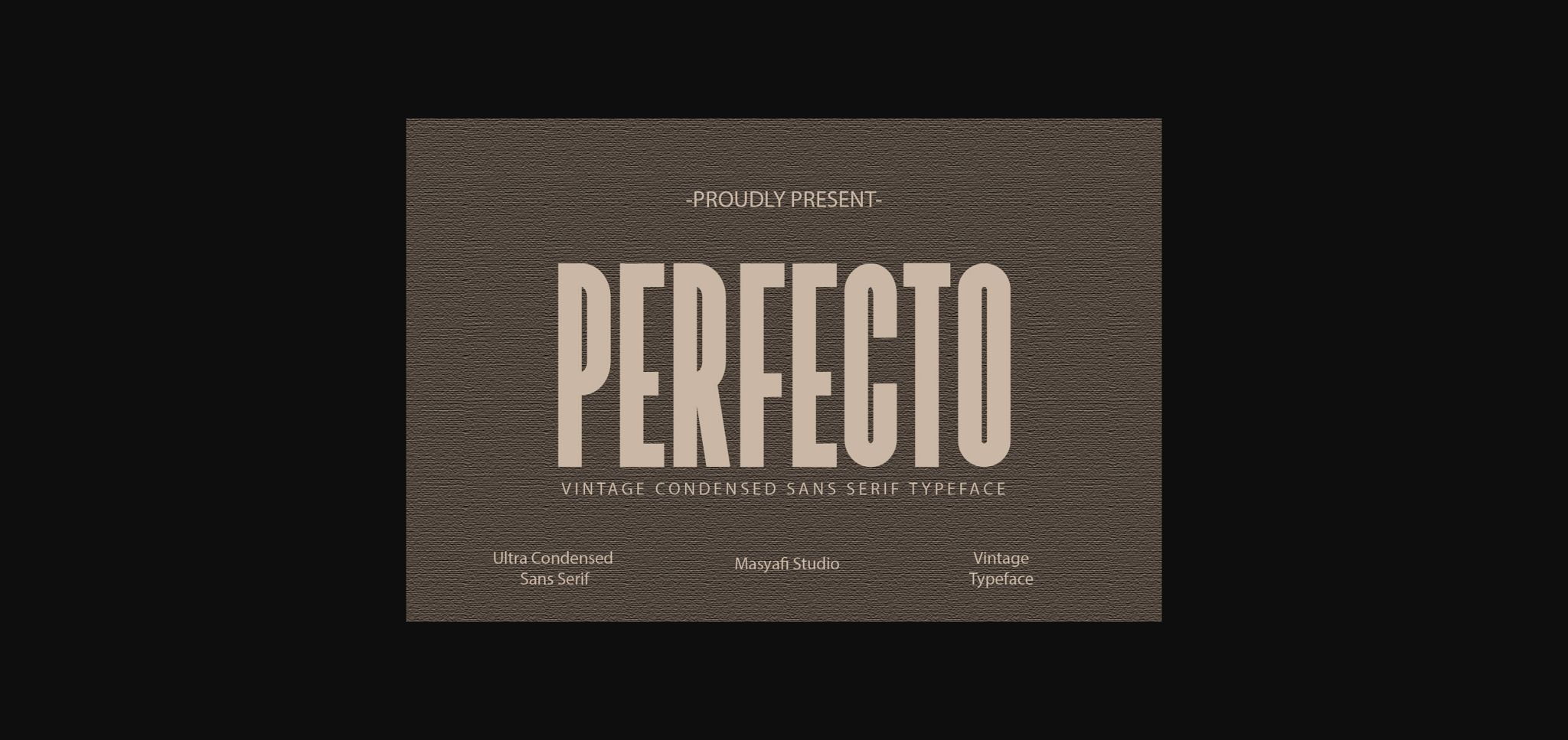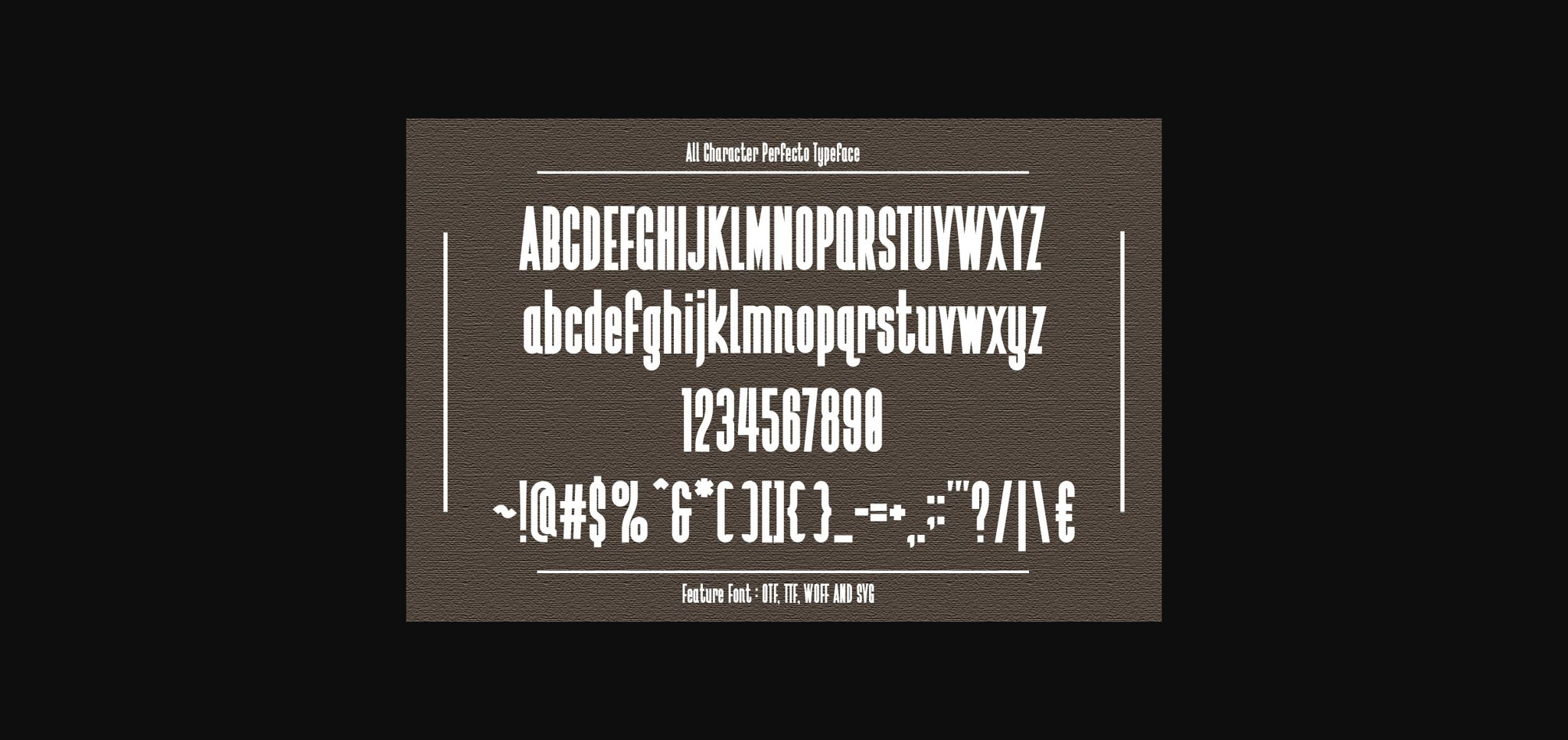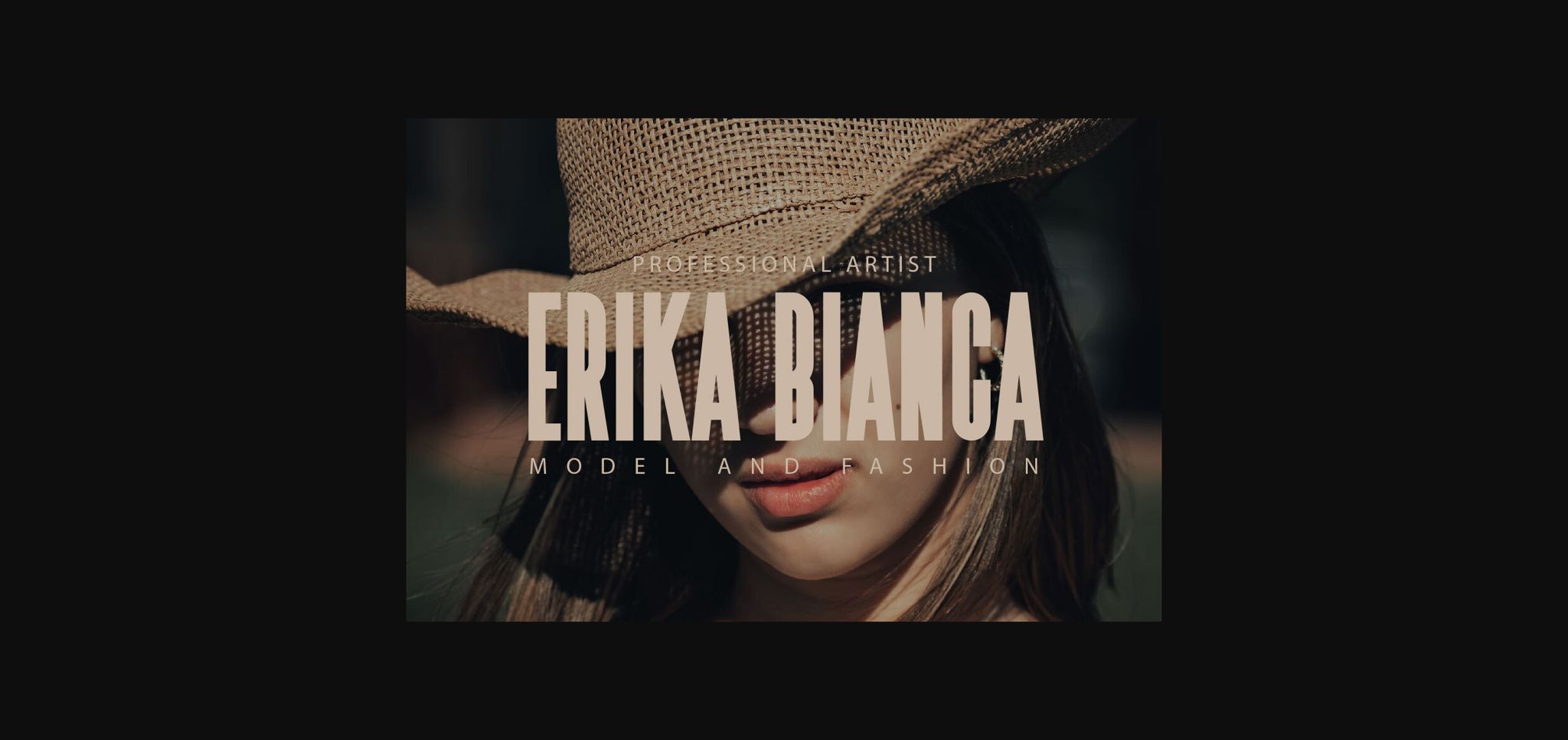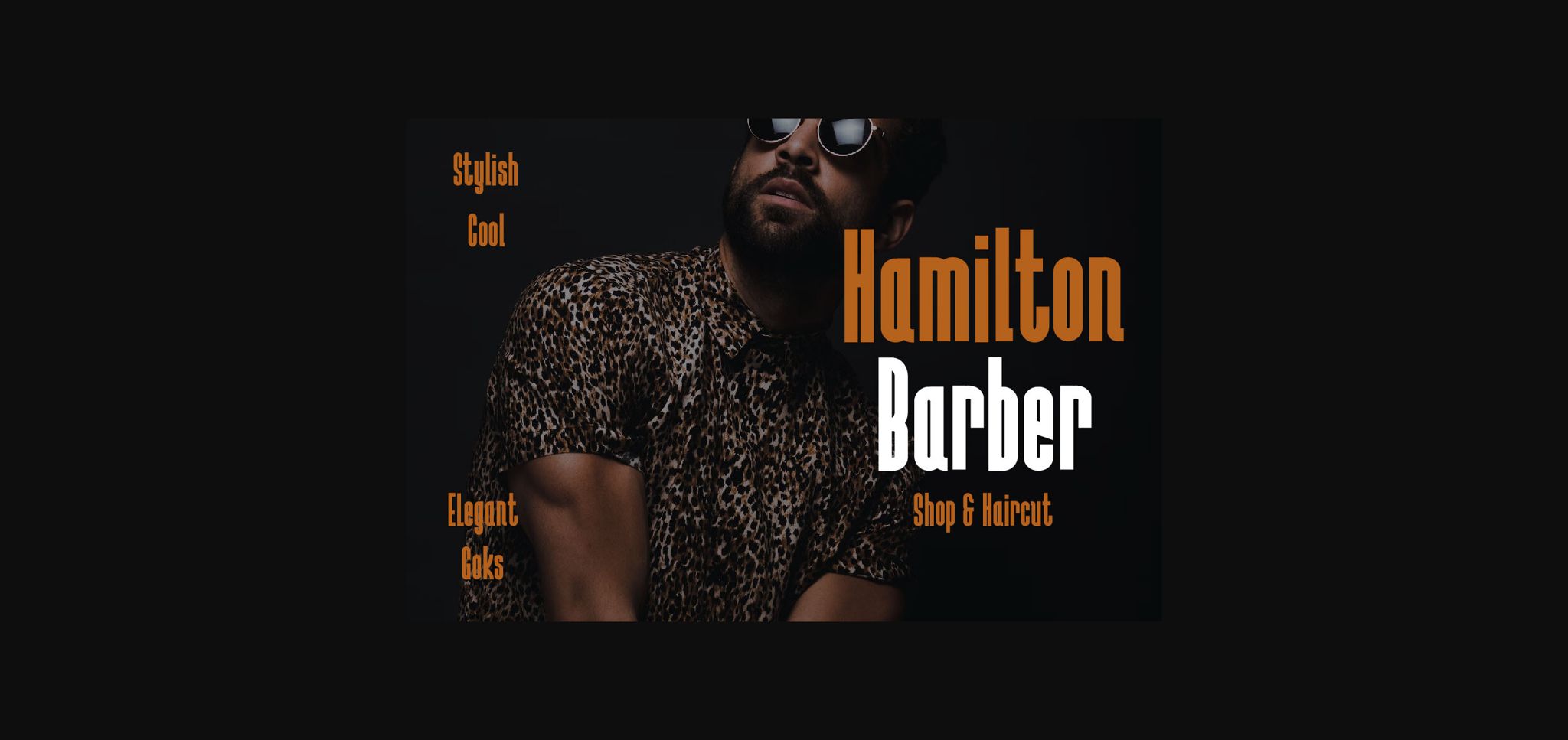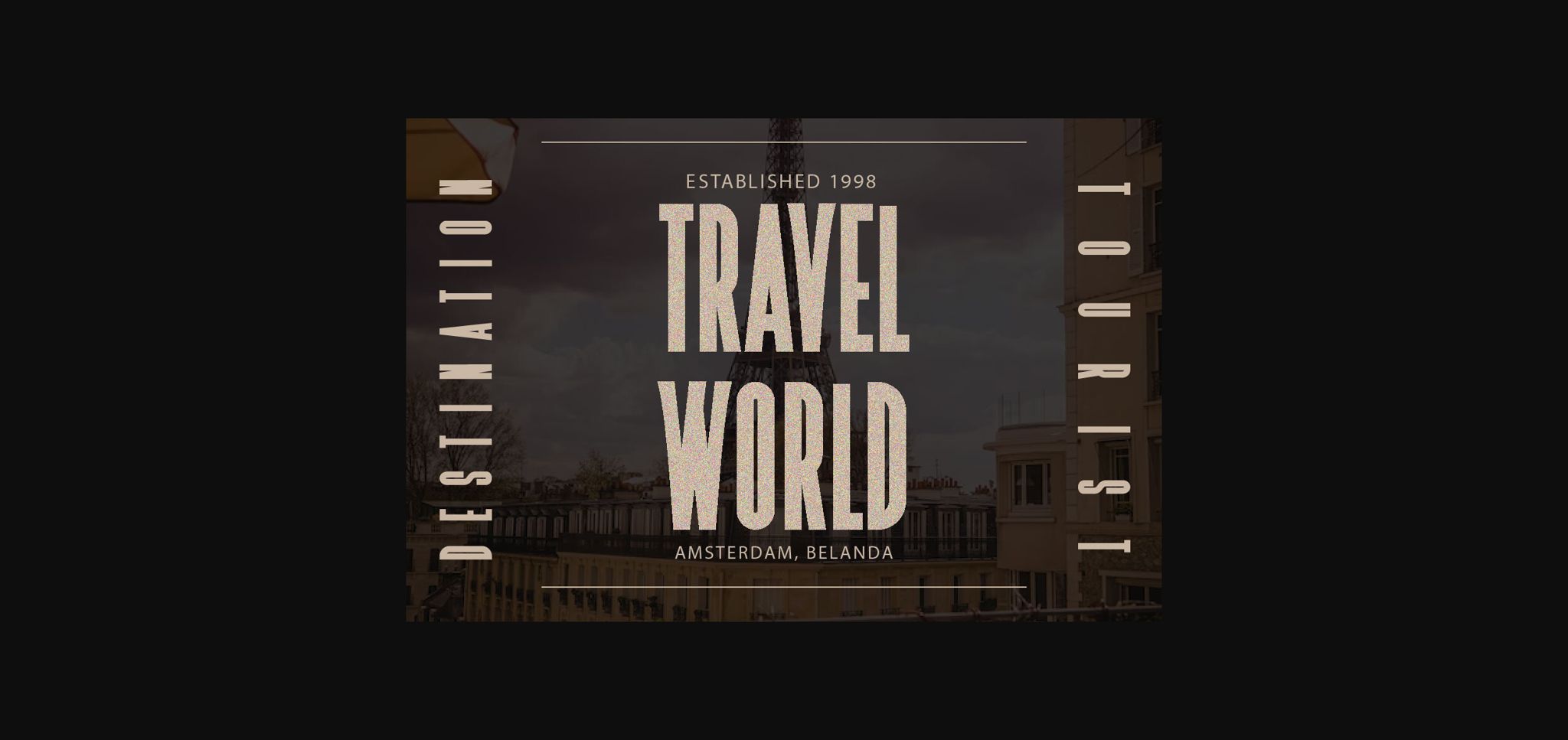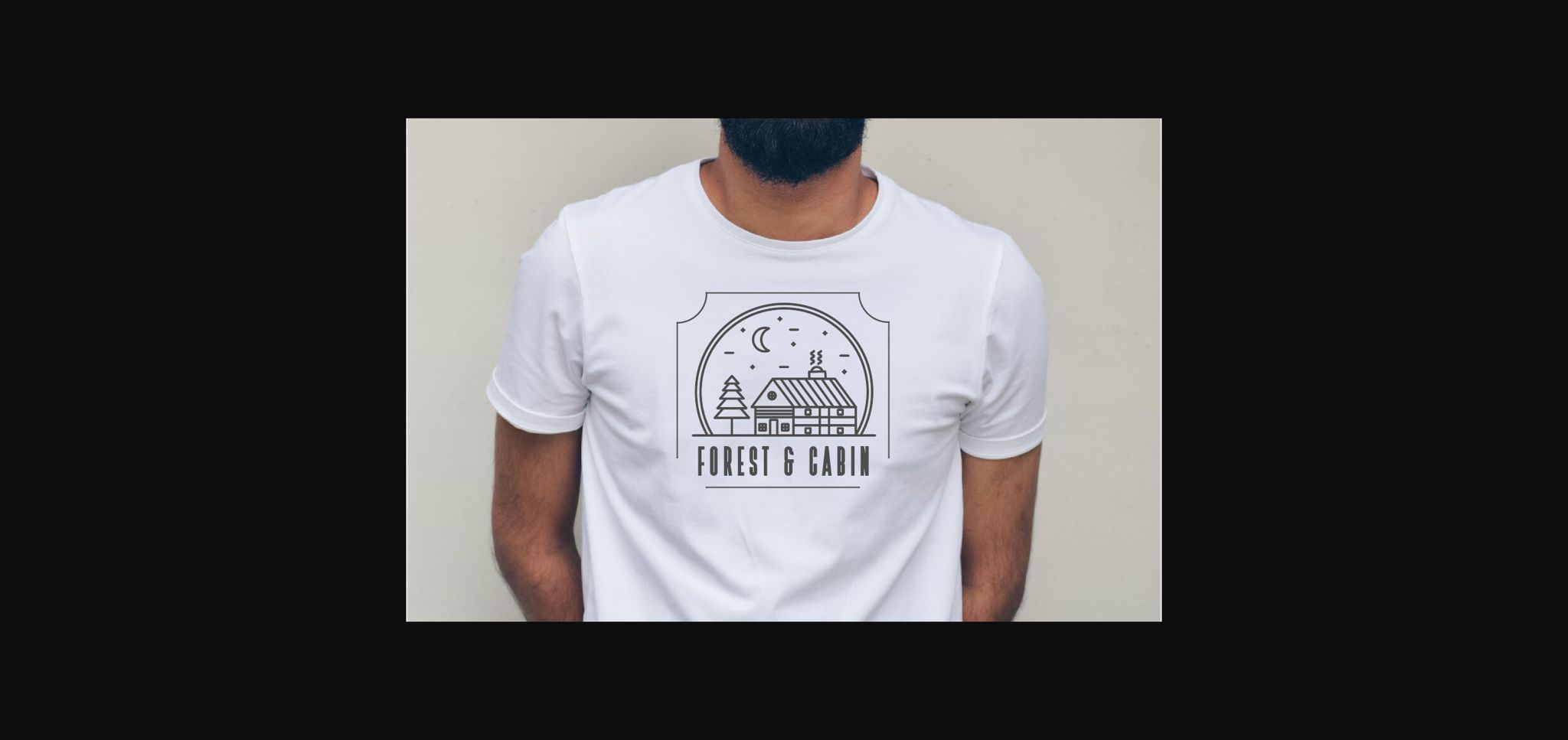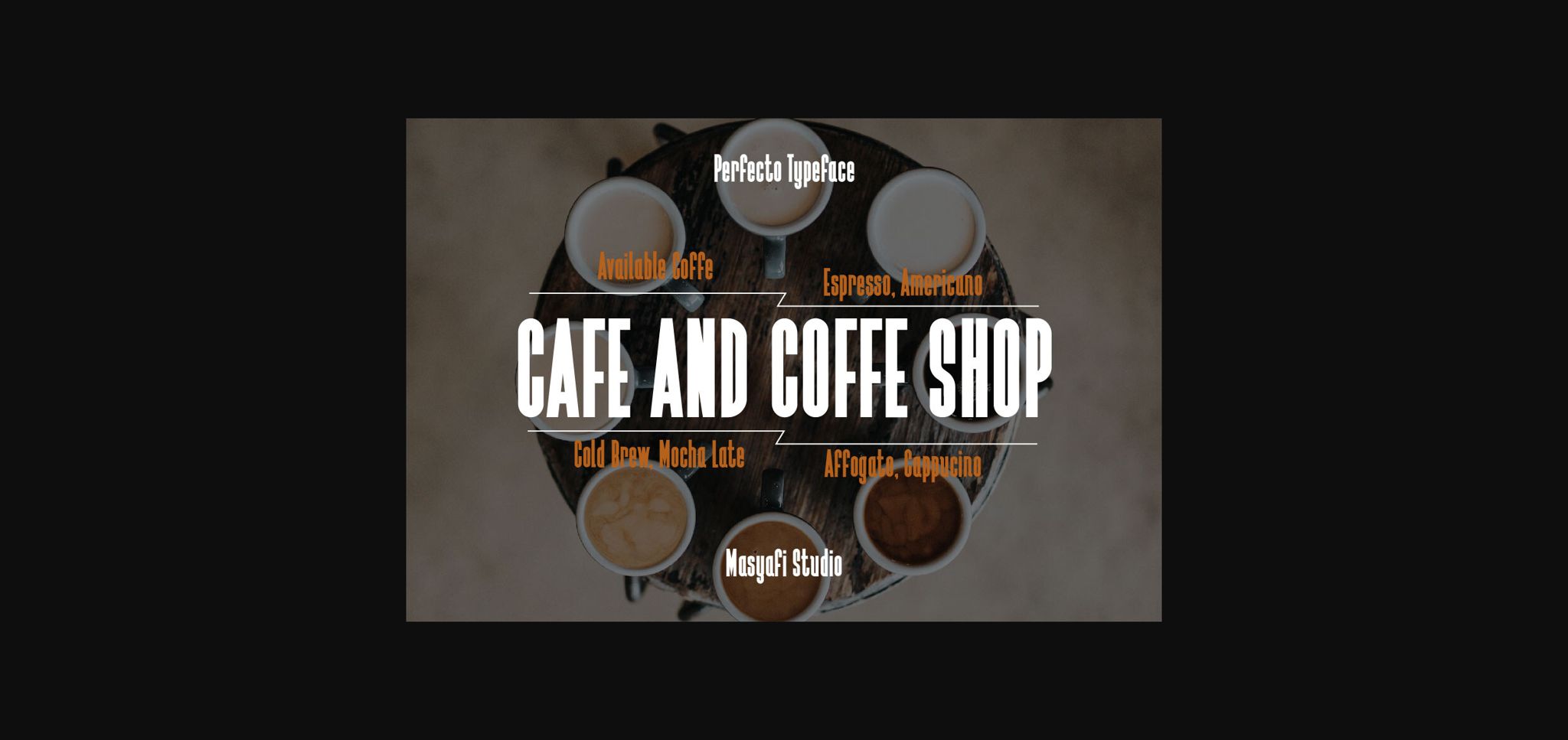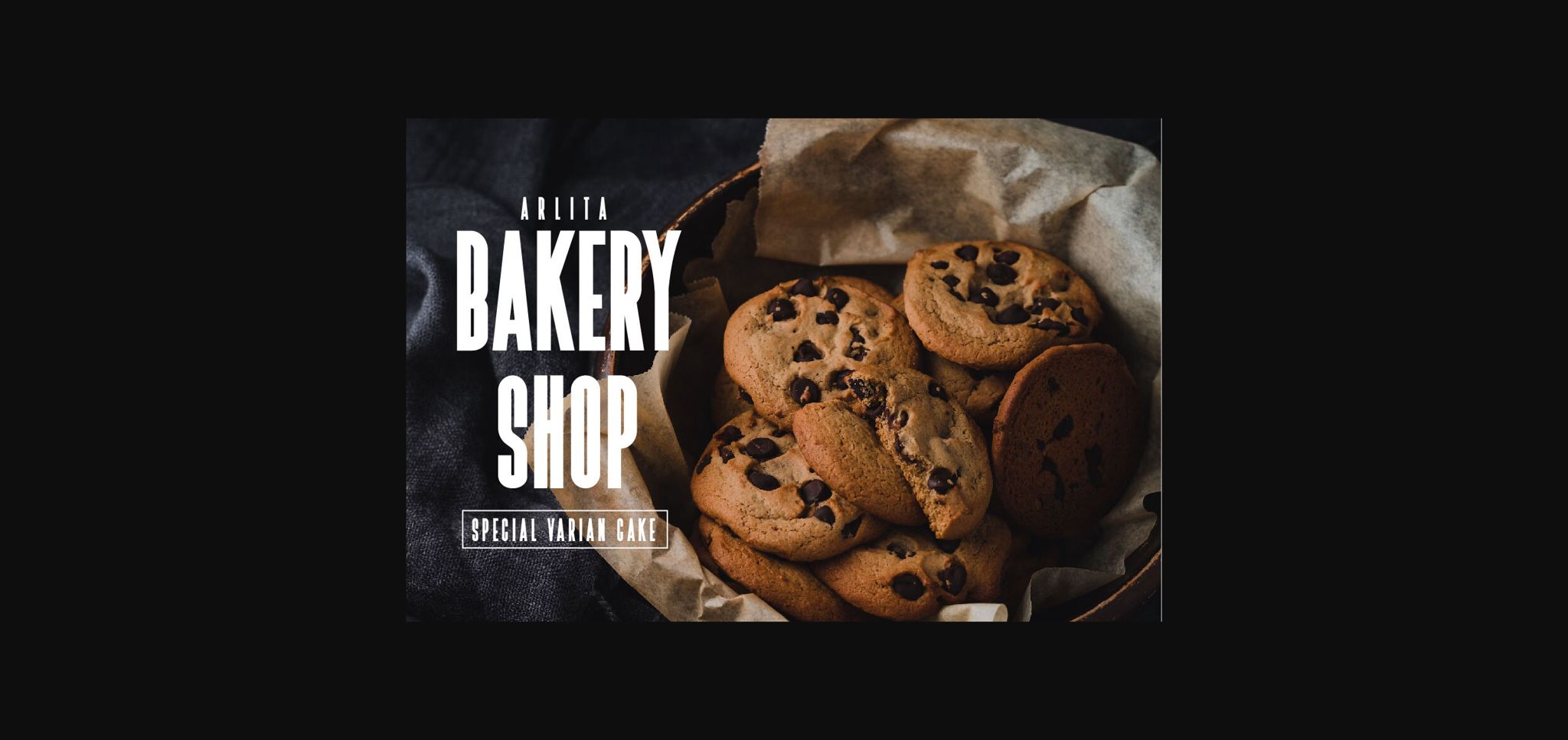
Perfecto Font
About Perfecto Font
Introducing Perfecto – Sans Serif Typeface
Sans Serif Typeface
with vintage, condensed, and manly styles. This font is cool for headlines, overlays, t-shirts, tote bags, etc.